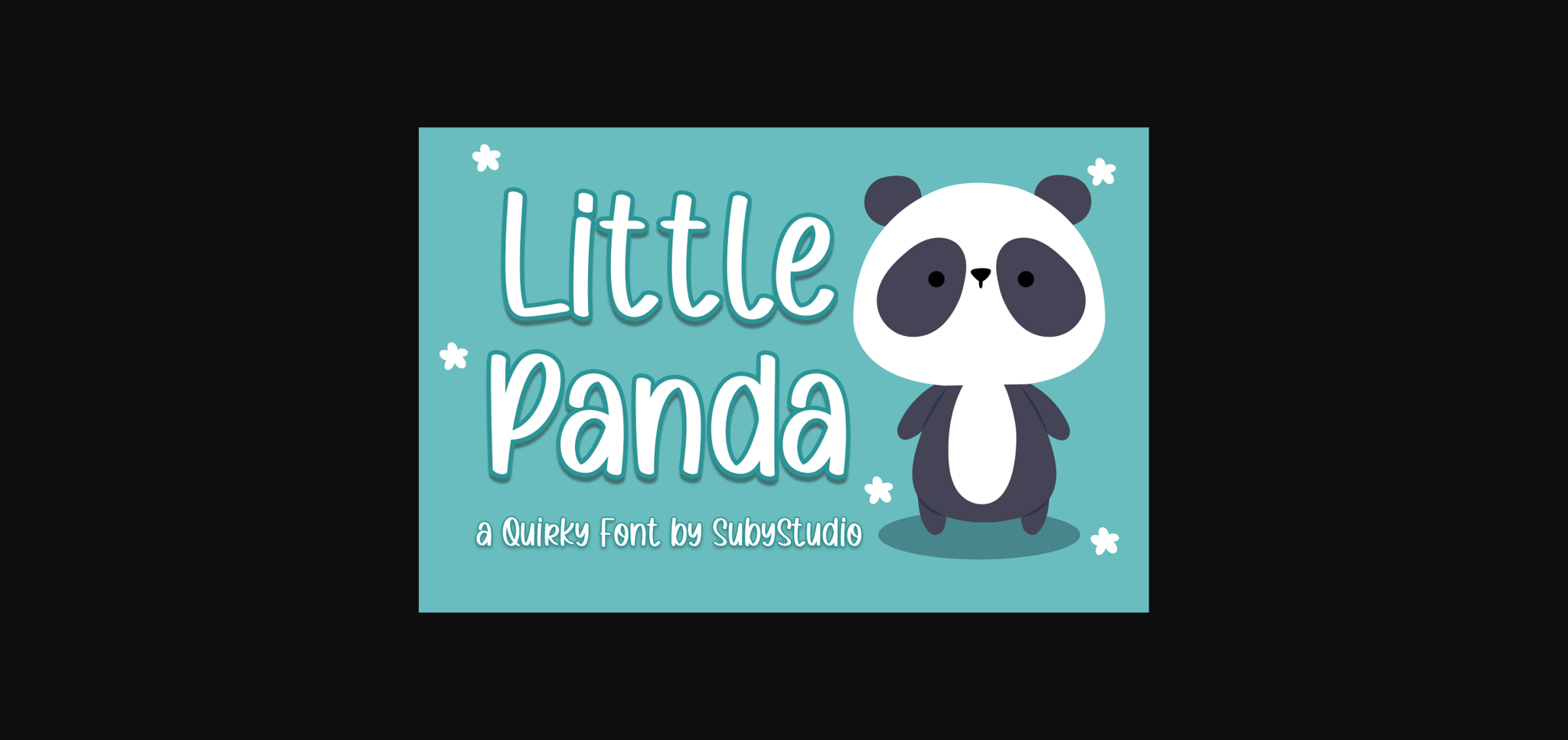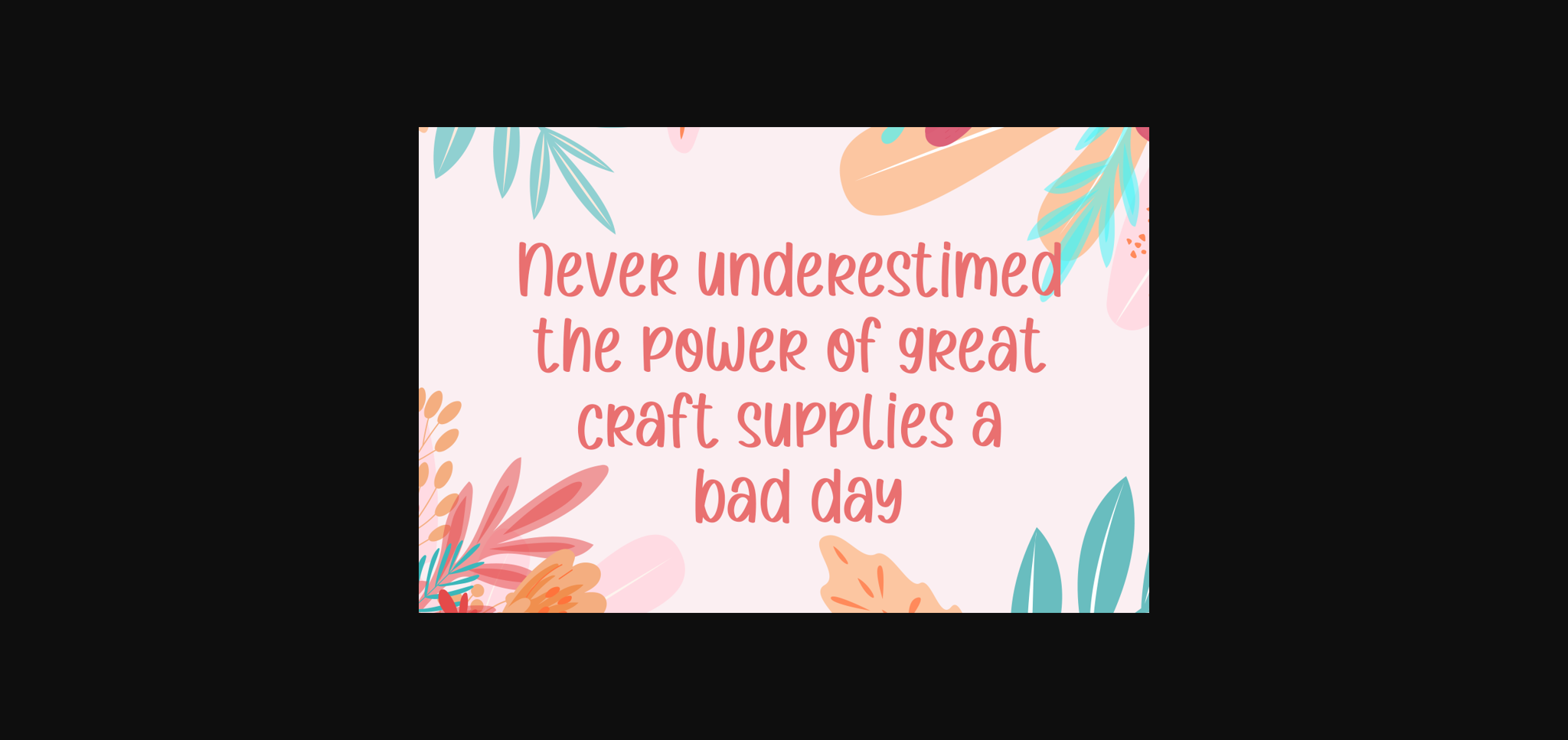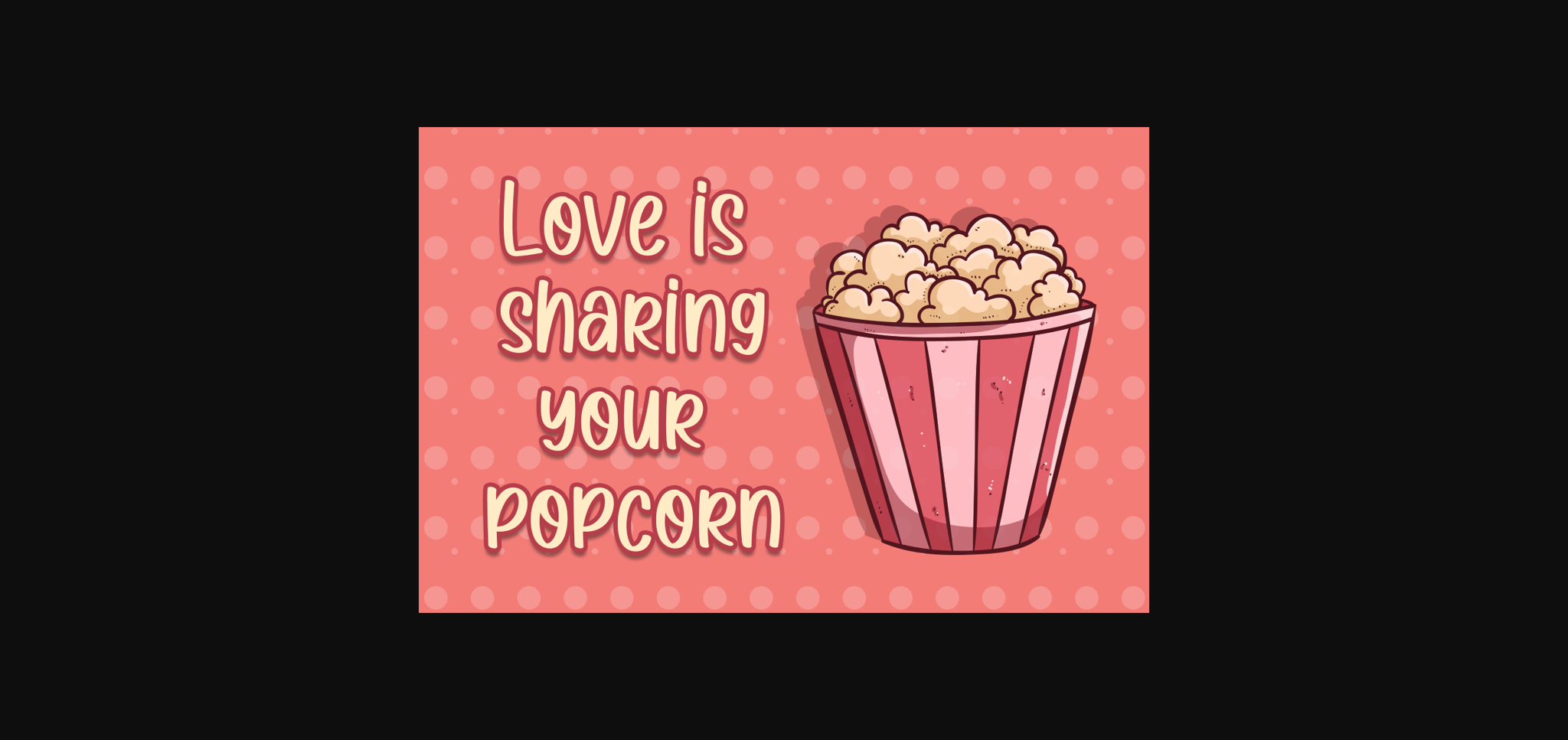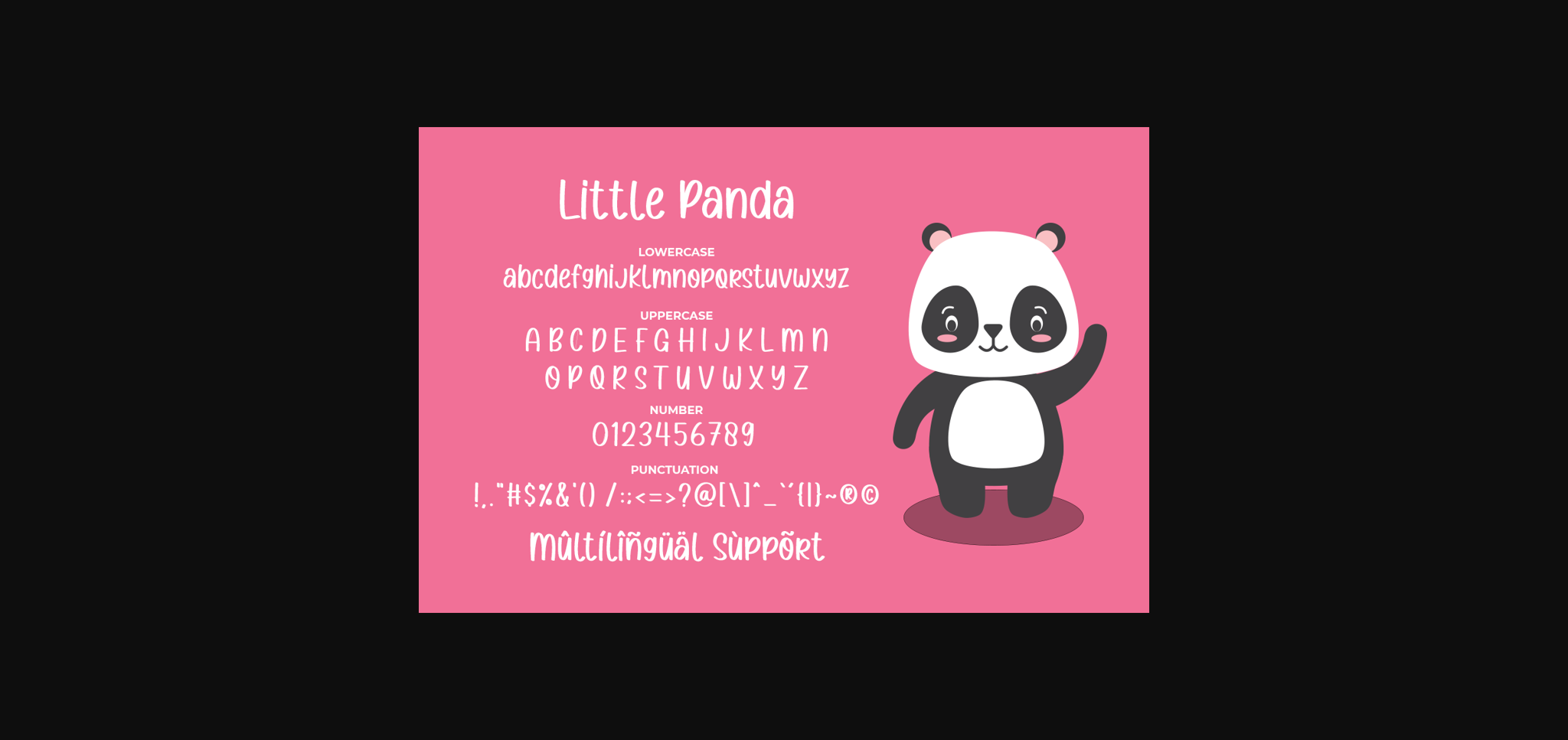
Little Panda Font
About Little Panda Font
Little Panda embodies fun, quirkiness and authenticity. This enchanting sans serif font will turn any creative idea into a true standout.